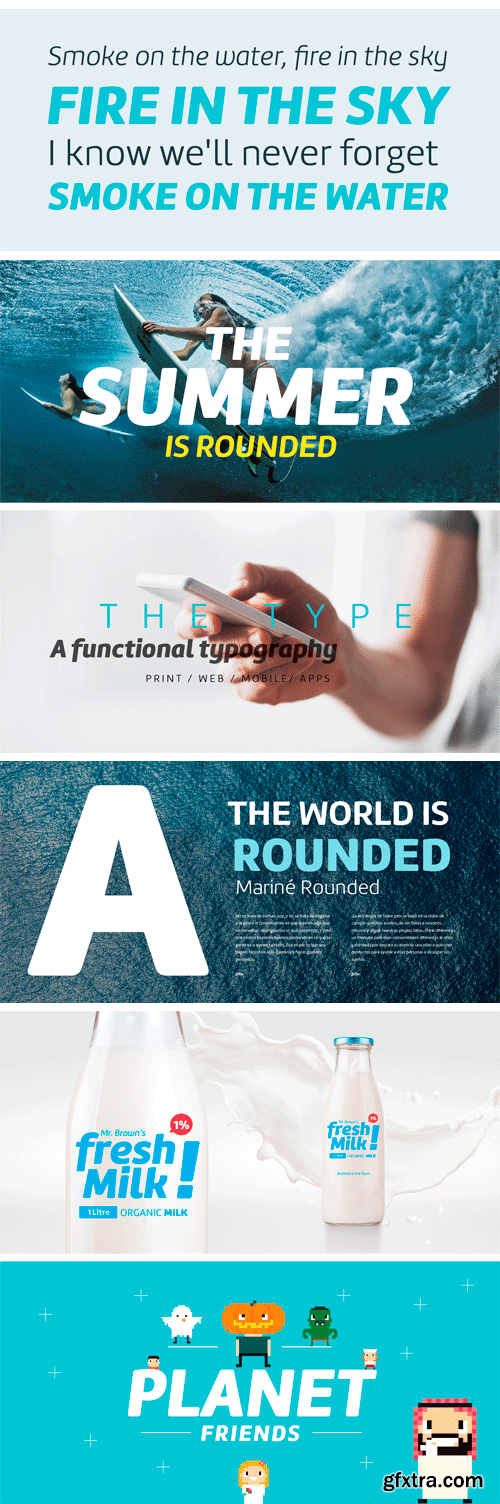
Mariné Rounded is a geometric sans, but with the softness of humanistic strokes. Its mild contrast and multiple different styles allow Mariné to work well both as a text and display typeface. It also includes an Up version and calligraphic features adding a touch of informality.